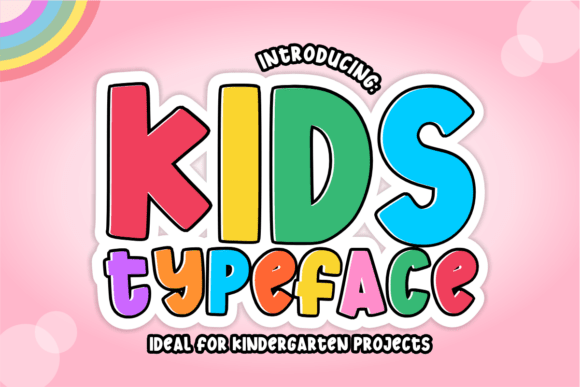
Adenman Posted 17 hours ago Share Posted 17 hours ago 🎈 KidsTypeface – Playful, Bubbly & Bold Kids Display Font 🎈 Bring a splash of fun and energy to your designs with KidsTypeface! This font is a vibrant, chunky display typeface designed to capture the cheerful spirit of childhood. With its soft, rounded edges and high-impact “bubble” look, it’s the ultimate choice for projects that need to be bold, friendly, and instantly engaging. Giveaway Link –> https://www.creativefabrica.com/product/kidstypeface/ flash13, vhick, MrZeb and 1 other 4 Quote Link to comment Share on other sites More sharing options...